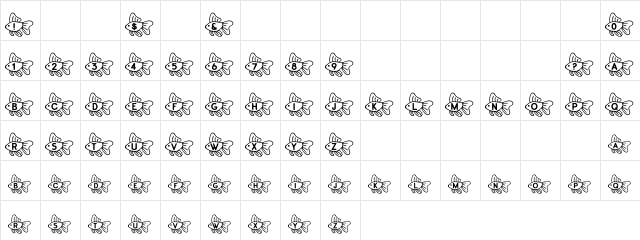
RMFish2 Regular
Design Context for RMFish2 Typeface
RMFish2 is a composed and adaptable typeface that performs quietly and consistently across a wide range of design contexts.